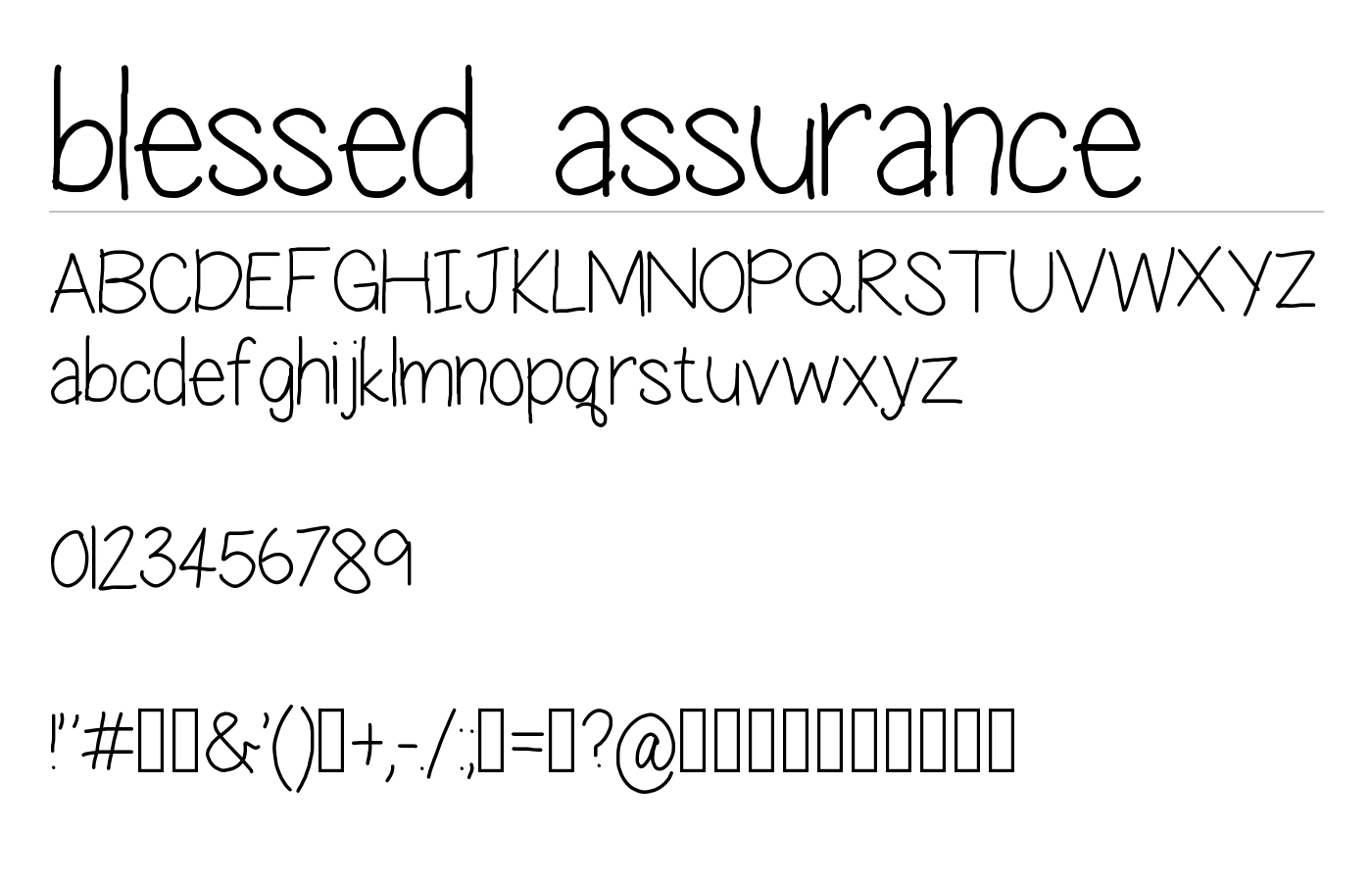
Blessed Assurance is a playful and casual handwritten sans serif font with a light weight and narrow width, featuring tall, slender letterforms with a delicate, hand-drawn feel. Its simple, irregular lines and quirky character shapes bring a friendly and approachable personality, making it a great choice for informal designs, kids' materials, or creative projects seeking an authentic, personal touch. This font works well for headlines, invitations, and branding that values warmth and individuality.
blessed assurance Font
About blessed assurance Font